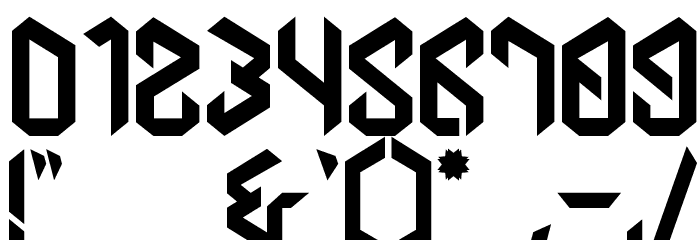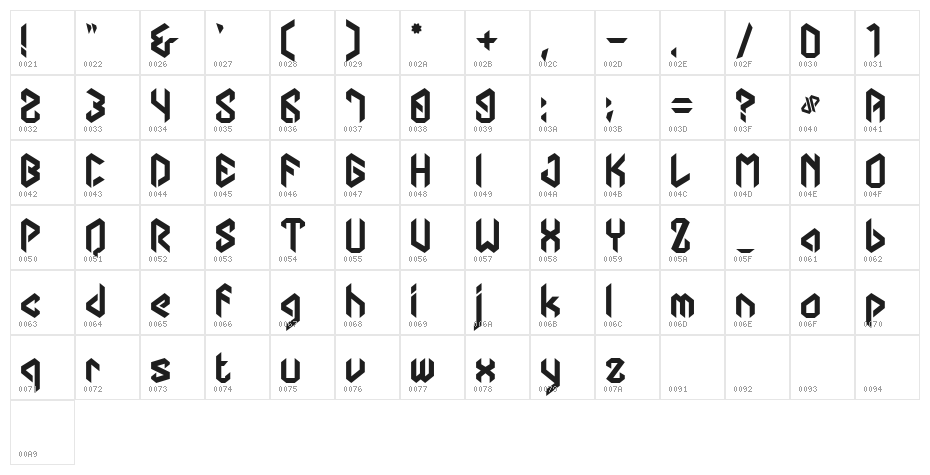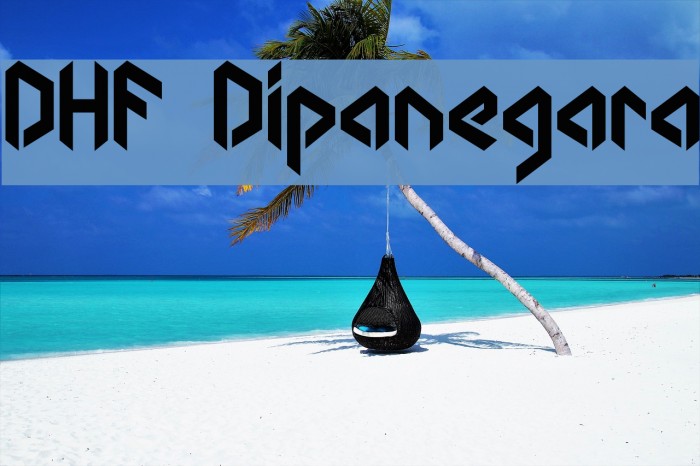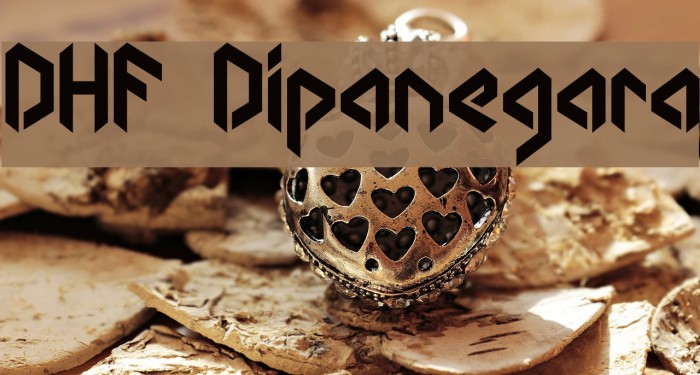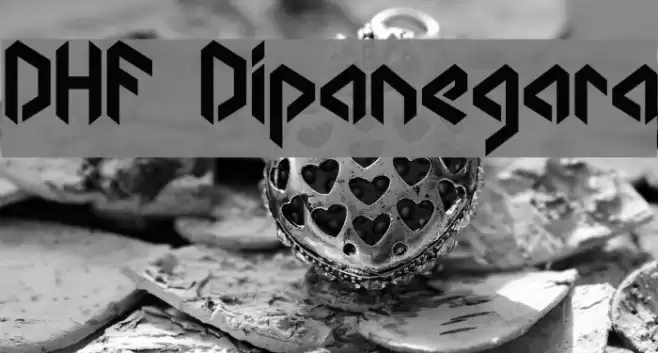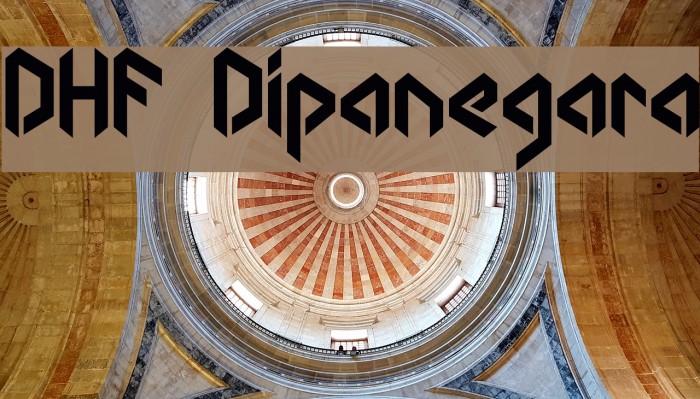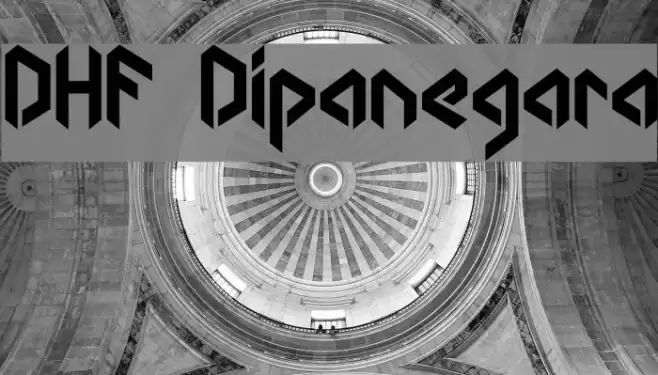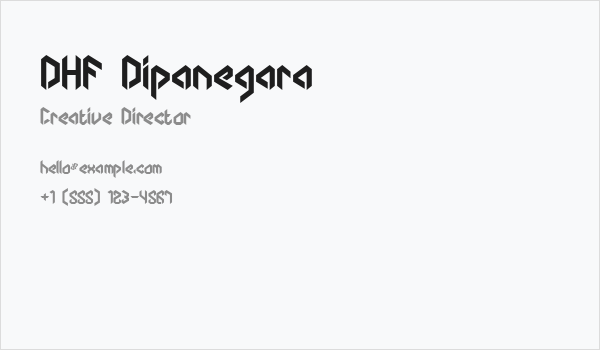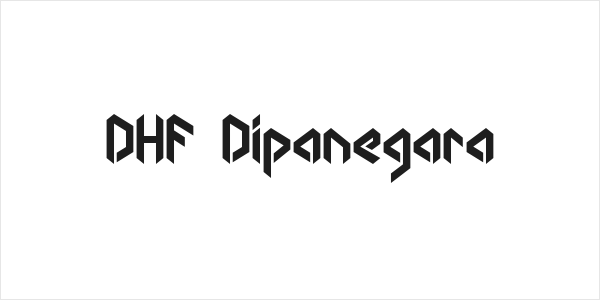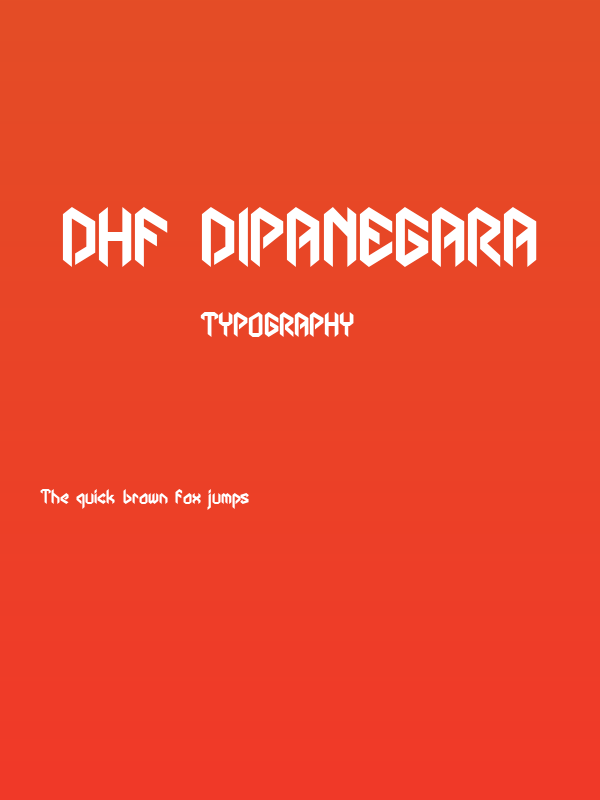
DHF Dipanegara Font
DHF Dipanegara Description
This font features a bold, angular design with sharp edges and a geometric structure. The uppercase and lowercase letters maintain a consistent style, characterized by their blocky and robust appearance. The numbers and special characters follow the same design principles, ensuring uniformity across all glyphs. The font's unique style is reminiscent of a futuristic or industrial aesthetic, making it stand out with its strong visual impact. The characters are tightly spaced, enhancing the compact and cohesive look of the text.
| Proposed Projects | Ideal for branding, posters, and headlines that require a strong, modern aesthetic. |